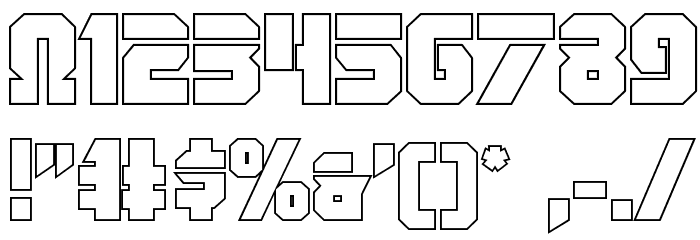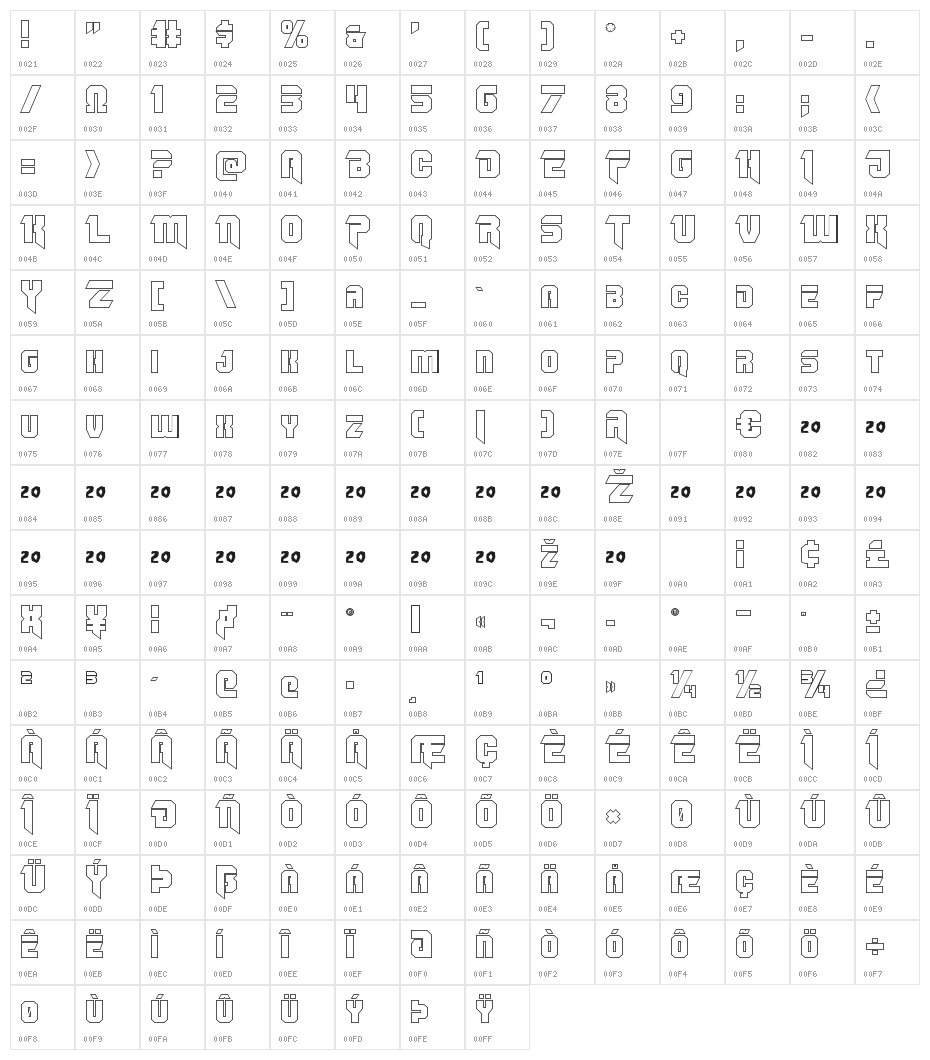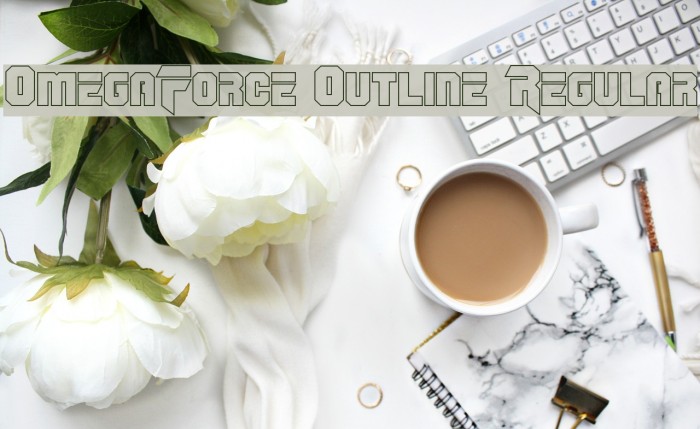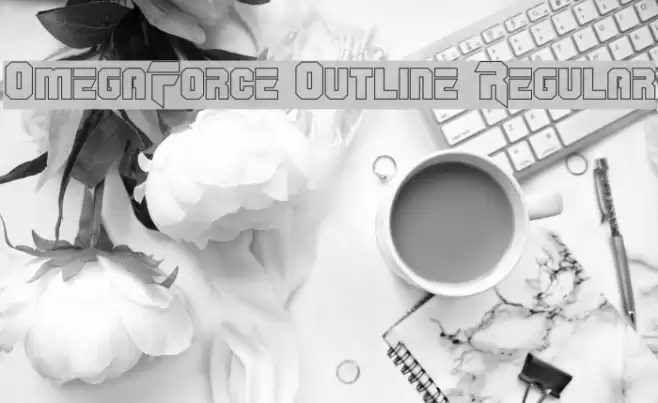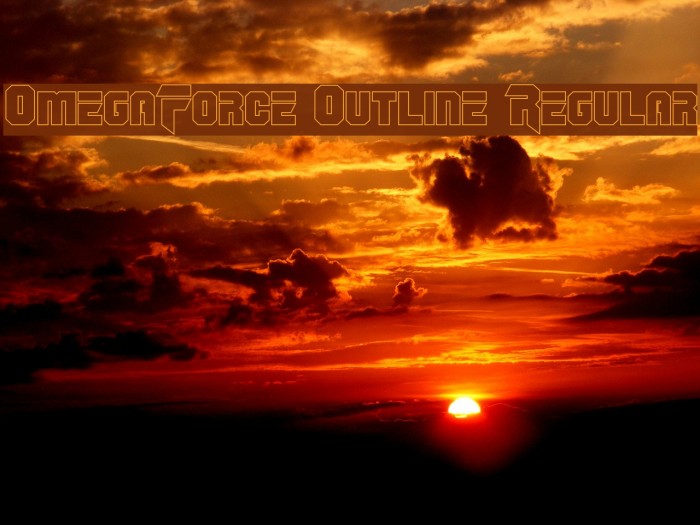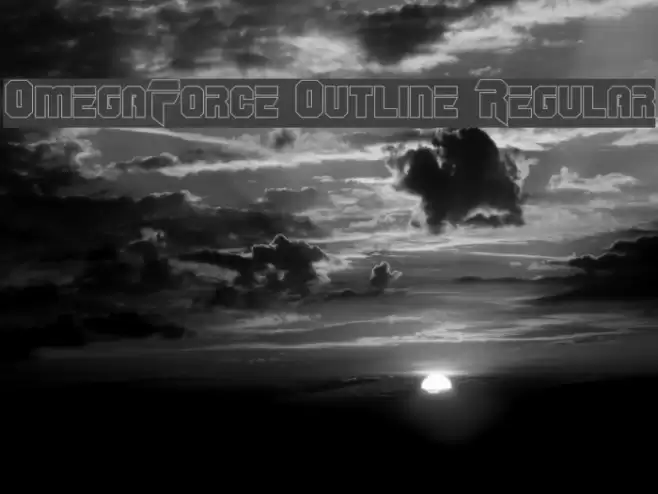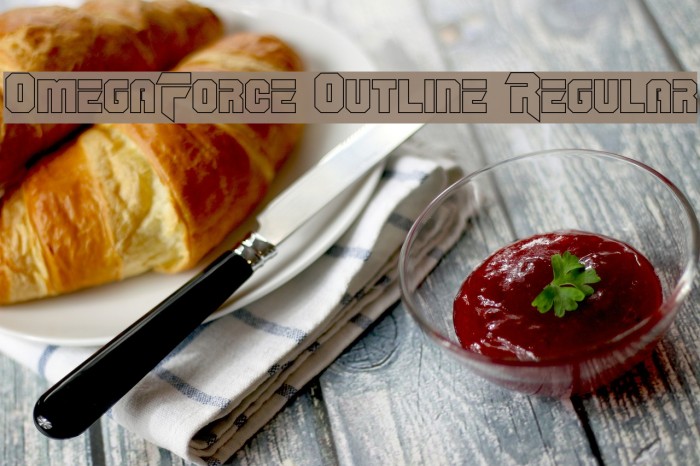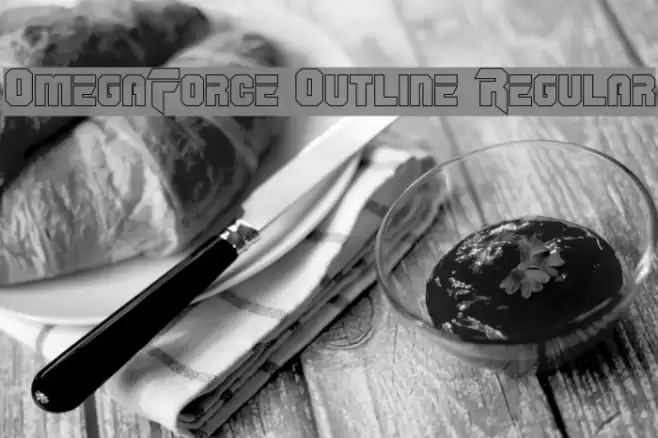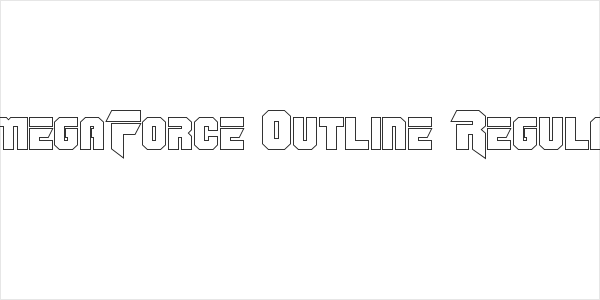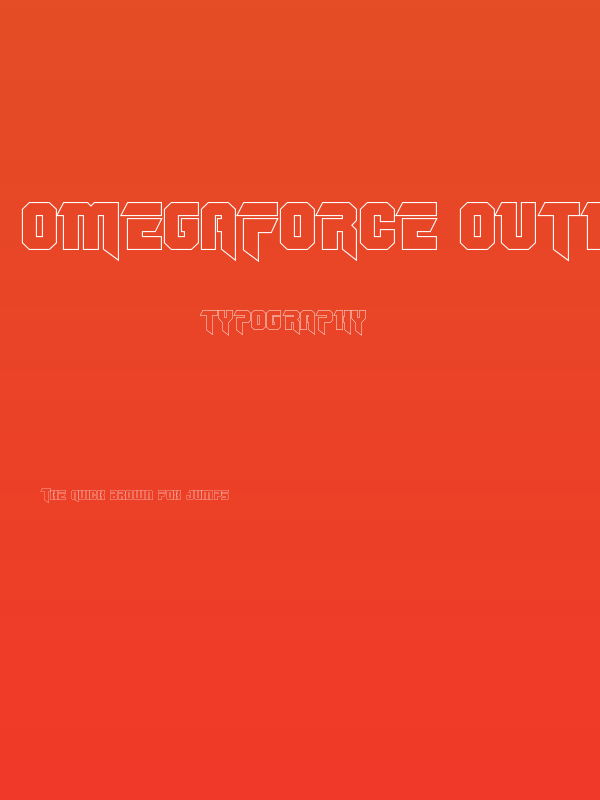
OmegaForce Outline Regular Font
OmegaForce Outline Regular Description
This font features a bold, geometric outline style that emphasizes sharp angles and a futuristic aesthetic. The characters are constructed with a consistent line weight, creating a uniform appearance across all glyphs. The design is highly stylized, with each letter and number having a distinct, angular form that suggests a sense of movement and modernity. The uppercase and lowercase letters share a similar structure, maintaining the font's cohesive look. The numerals and special characters are equally bold, fitting seamlessly with the overall design. This font is ideal for projects that require a strong, impactful visual presence.